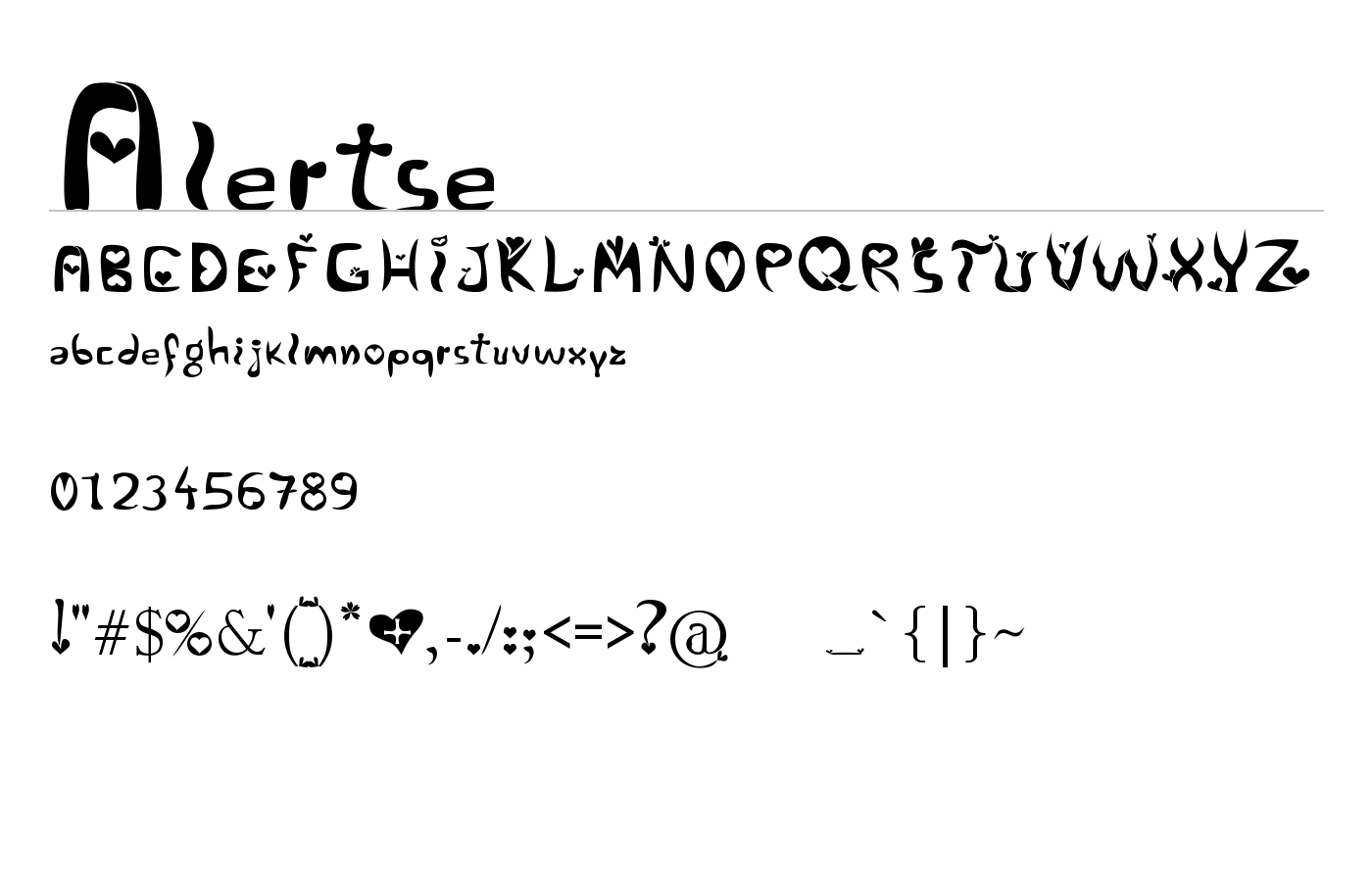
Alertse is a whimsical, decorative sans serif font featuring playful heart-shaped and floral accents that give it a quirky, charming personality. With its irregular stroke widths and unique letterforms, this font works best for creative projects, children's books, and designs that call for a fun, lighthearted touch. Its distinctive style makes it ideal for headlines, logos, and branding that aim to capture attention with a joyful and artistic flair.
Alertse Font
About Alertse Font